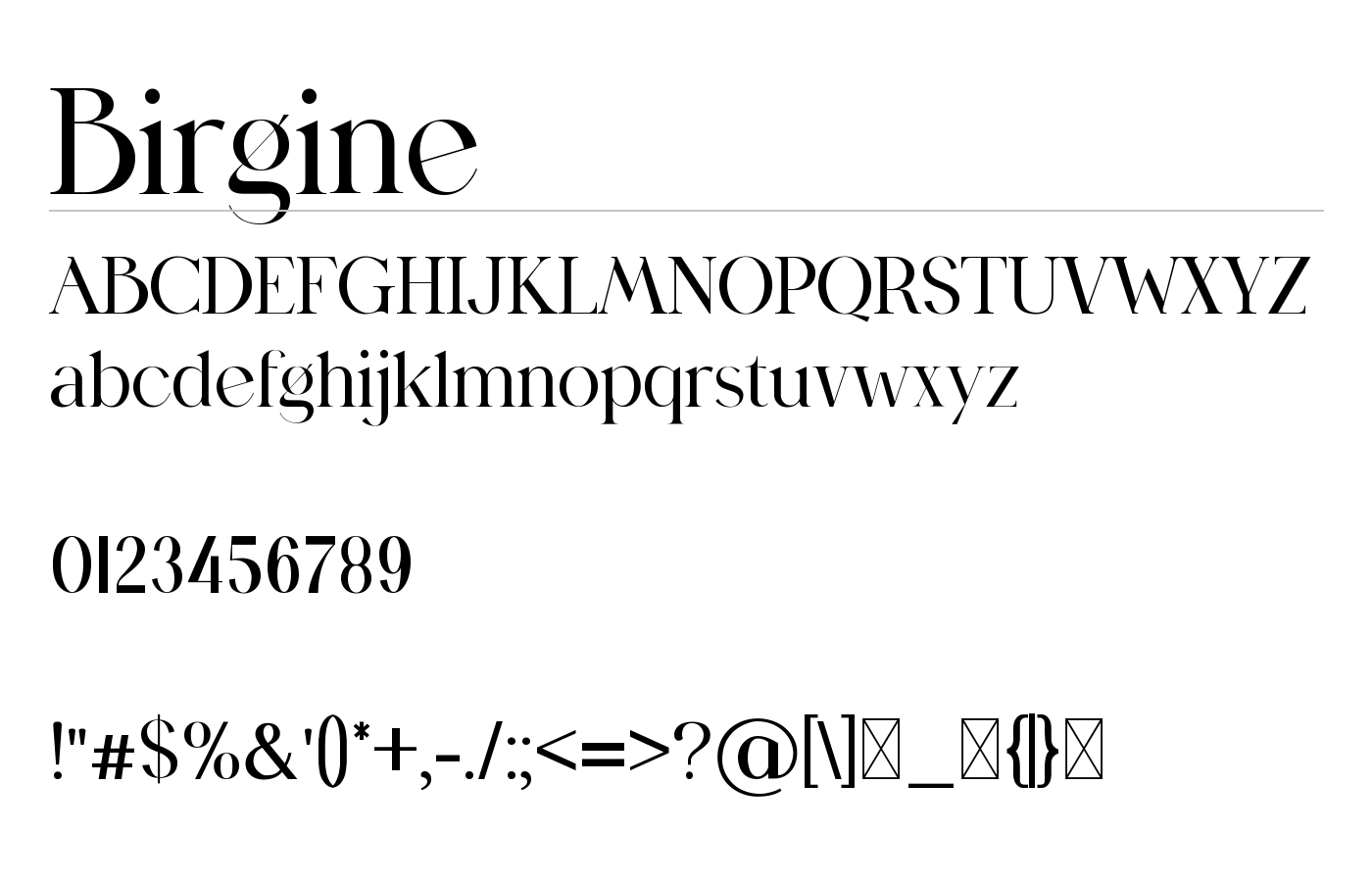
Birgine is an elegant serif font that blends classic sophistication with modern flair through its high contrast strokes and delicate, sharp serifs. Its refined letterforms, featuring distinctive details like the single-story ‘g’ and subtle angular nuances, make it ideal for upscale branding, editorial headlines, and luxury packaging where graceful readability and stylish presence are key. This font’s slender, tall proportions and clean lines create a polished, timeless look perfect for conveying elegance and professionalism.
Birgine Font